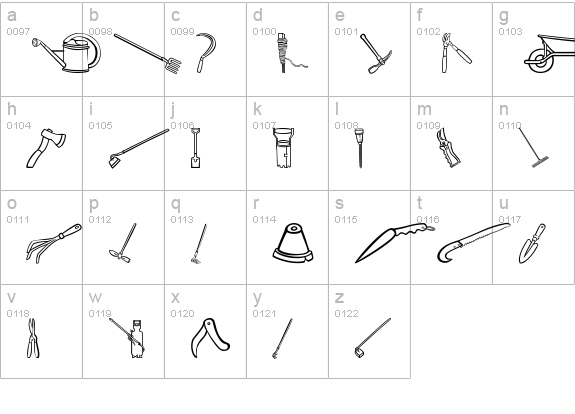
Little Gardener Font Details
Little Gardener font is a whimsical and charming typeface that exudes a sense of playfulness and creativity. With its hand-drawn appearance and quirky details, this font is perfect for adding a touch of whimsy to your projects. Whether you're working on a children's book, a greeting card, or a branding design, Little Gardener will bring a sense of fun and personality to your work. The best part about Little Gardener font is that it is completely free to download at FontsMarket.com. This means you can add this delightful font to your collection without any cost, making it a wonderful resource for designers on a budget. So go ahead and give your designs a fresh and unique look with Little Gardener font today!